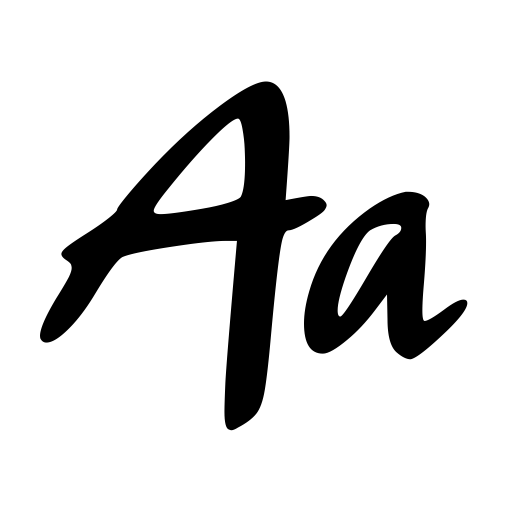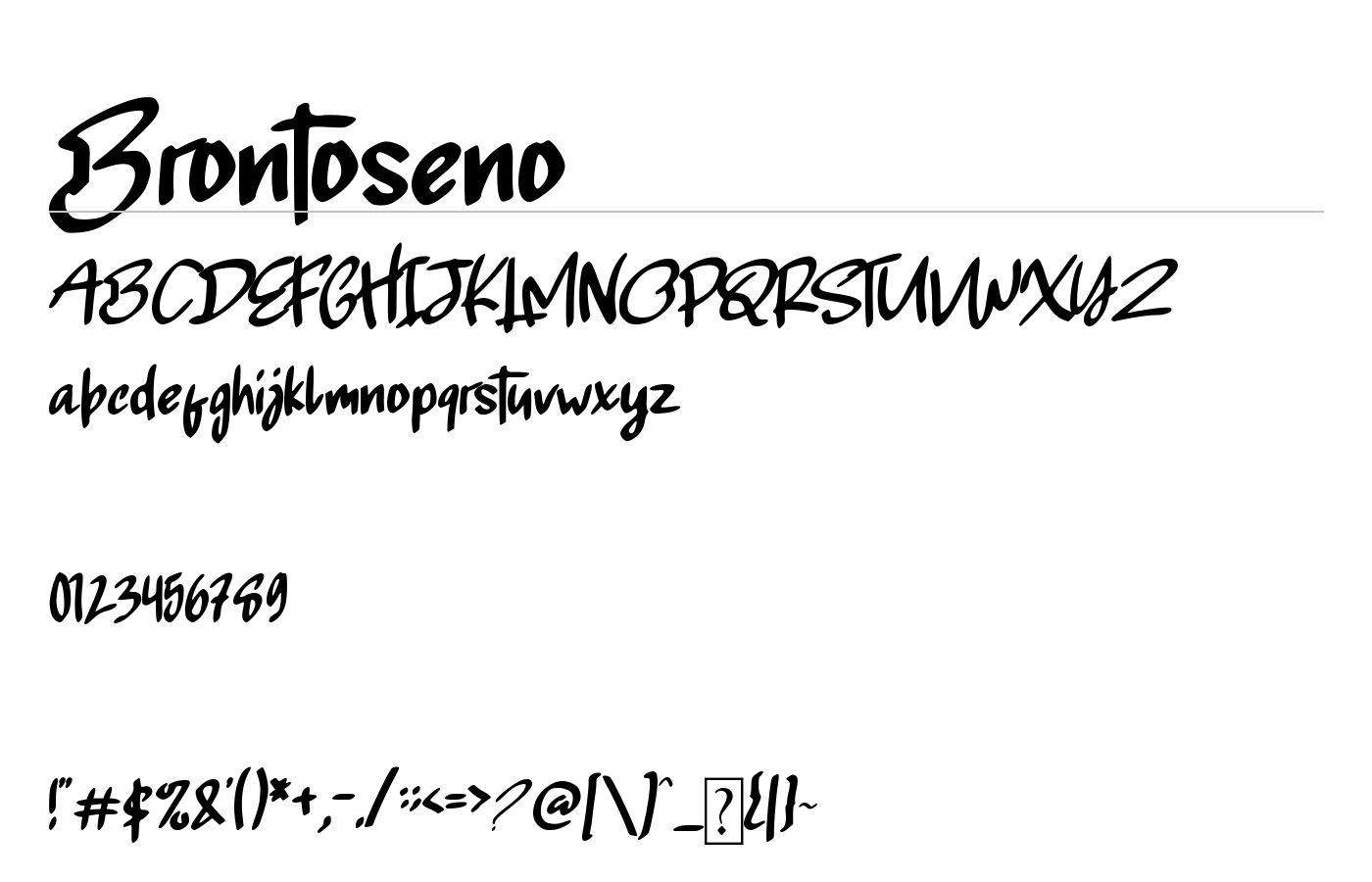
Brontoseno is a lively, casual script font with a handwritten feel that combines bold and energetic strokes with smooth, flowing curves. Its playful yet confident style makes it ideal for creative branding, posters, and informal editorial design where a personal and dynamic touch is desired. This font’s expressive character adds warmth and approachability, perfect for projects that seek to stand out with personality and charm.
Brontoseno Font
About Brontoseno Font
| Font family | Brontoseno Font |
| Designer | Green Adventure Studio. 2020 |